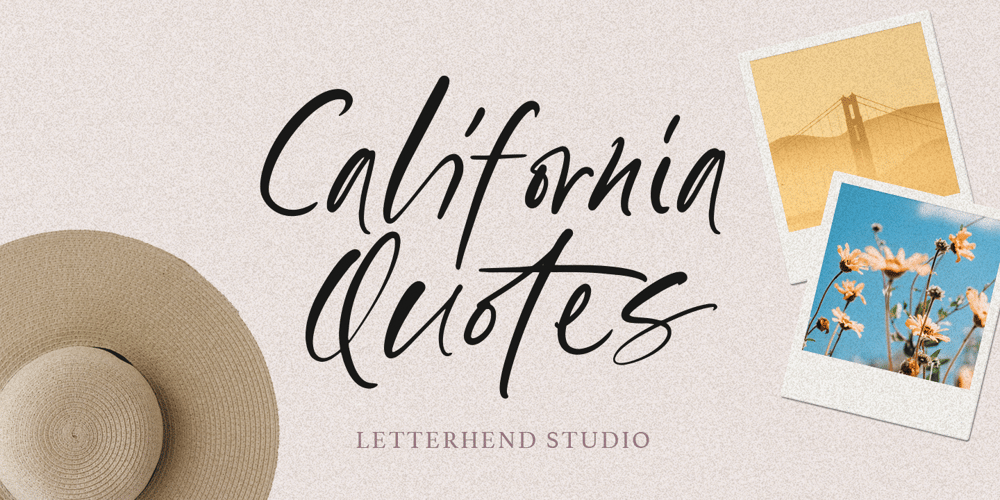
California Quotes
California Quotes font
California Quotes Font Family was designed by Hendry Juanda and published by Letterhend. California Quotes contains 1 styles and family package options. California Quotes is a casual typeface based on natural hand writing. This font has many stylistic alternates, ligatures, swashes so you can play around with them using opentype features and creates lettering with natural touch. This type of font perfectly made to be applied especially in logo, and the other various formal forms such as invitations, labels, logos, magazines, books, greeting / wedding cards, packaging, fashion, make up, stationery, novels, labels or any type of advertising purpose.Features : uppercase & lowercase numbers and punctuation multilingual alternates and ligatures PUA encoded We highly recommend using a program that supports OpenType features and Glyphs panels like many of Adobe apps and Corel Draw, so you can see and access all Glyph variations.